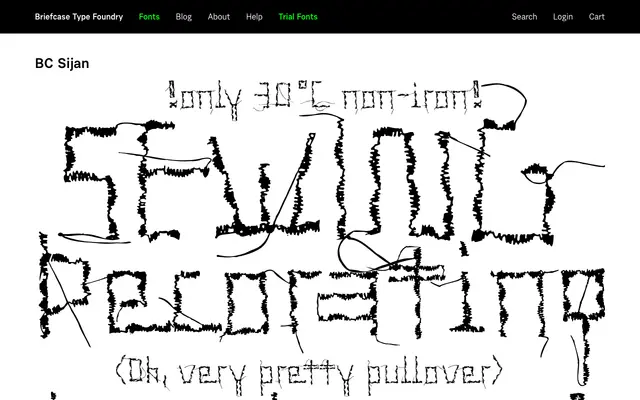
A serif typeface from Briefcase Type Foundry, released under their BC naming convention alongside other Central European-influenced designs.
BC Sijan is part of Briefcase Type Foundry's catalogue of named serif releases, sitting alongside BC Prkno, BC Rezan and BC Trhan. The page provided insufficient detail to determine specific weights, italics or language coverage with certainty. Briefcase Type Foundry is a Czech foundry known for text and display serifs with Central European character.
Insufficient page content to determine precise subcategory or category; classified generically as serif based on Briefcase Type Foundry's typical output and naming conventions similar to other BC serif releases.